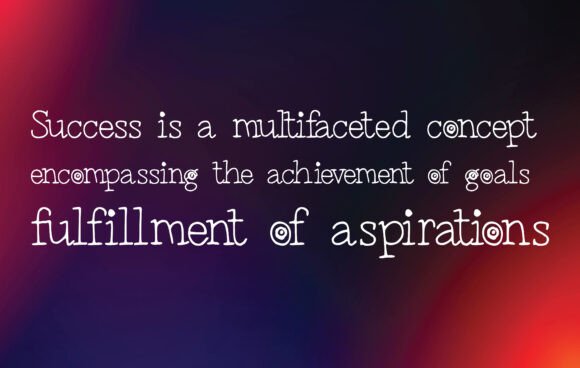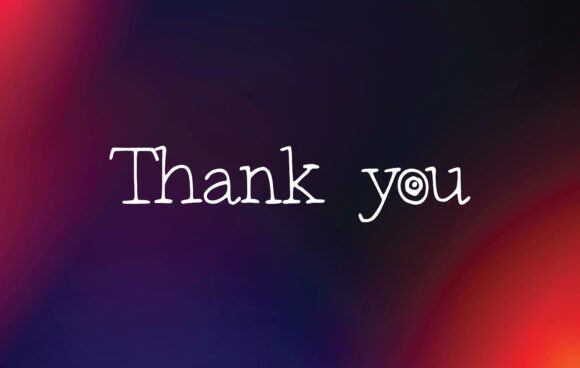
Introduction to Semal Font
Have you ever been stuck staring at a blank design canvas, desperately searching for the perfect font to bring your creative vision to life? You know the feeling – the excitement of a new project is matched only by the anxiety of choosing the right design resource. That’s where the Semal Font comes in – a game-changing addition to your design arsenal that’s sure to elevate any project.
With its unique blend of style and versatility, the Semal Font is the perfect choice for designers of all levels. Whether you’re working on a high-profile branding campaign or a personal project, this font is sure to deliver. Its clean lines and modern aesthetic make it a standout choice for titles and body text alike, and its high-quality design ensures that it will look great on any background – even a transparent one.
Key Features of Semal Font
- Unique transparent background that allows for versatility in design and layout.
- Includes multiple font styles and weights, making it suitable for a range of design needs.
- Designed with a high resolution, making it suitable for use in print and digital media.
Honest Review: Semal Font
I recently had the chance to work with the Semal Font, and I must say it’s been a great experience. As a designer, I’m always on the lookout for high-quality design resources that can elevate my creative projects.
What works well with Semal Font is its versatility. It comes in a range of weights and styles, making it perfect for a variety of design needs. I’ve used it for logos, branding materials, and even digital interfaces. The font is also very easy to customize, which is a huge plus for me.
Here are some of the key features that I like about Semal Font:
- High-quality design with a transparent background
- Excellent for creating a professional-looking design
However, I do have to mention that the Semal Font can be a bit overwhelming to use at times. The numerous styles and weights can make it difficult to decide which one to use, especially for a beginner.
Overall, I’d say that the Semal Font is a great addition to any designer’s toolkit. While it may have some limitations, its versatility and high quality make it well worth the download.
The Semal Font is a high-quality, versatile font that can elevate any creative project. This free download is perfect for designers and artists looking to add a unique touch to their work.
Tips for Getting the Most Out of Semal Font
To get the most out of the Semal Font, try the following:
- Use a transparent background to create a modern look
- Experiment with different font sizes and colors to create visual interest
- Combine the Semal Font with other design elements to create a unique look
The Semal Font is perfect for:
- Designing logos and branding materials
- Creating social media graphics and posts
- Designing digital products and websites
Q: Does the Semal Font have a transparent background?
Yes, the Semal Font includes a transparent background option, allowing you to easily integrate it into your design projects that require a clear background.